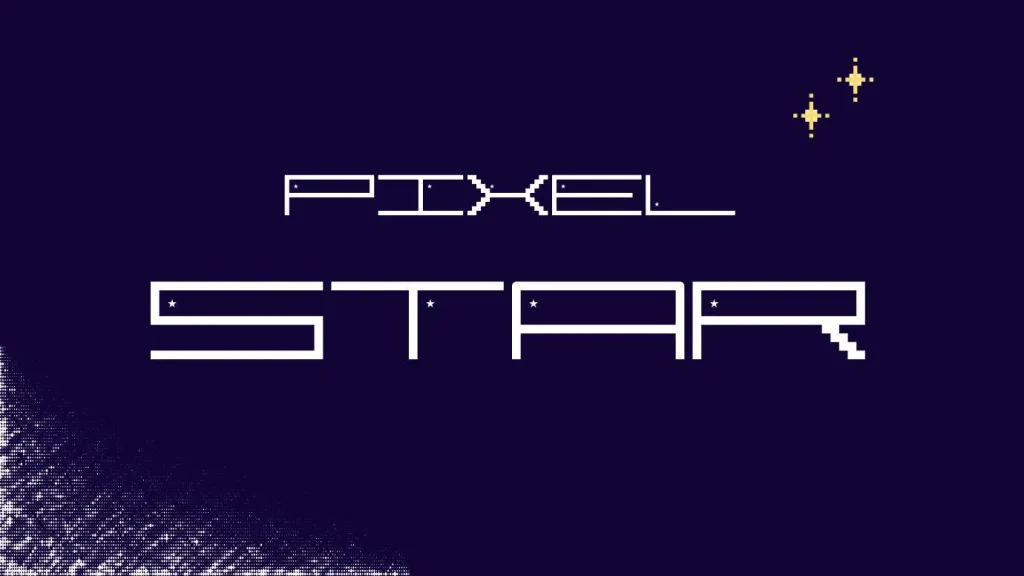
Pixel Star Font
About Pixel Star Font
Pixel Star Font is a techno typeface that was designed by Lewis Jones. In this font there are over a hundred formalized alternatives, allowing for unlimited customization and titling possibilities. It is a classic and stable design.
In addition to web development, game development, and logo design you can use them for many other purposes. Logos and headlines are best suited for this font. If you want to make a design that is both exclusive and grabs attention, it is crucial to pair this font with the hello sunshine font.
There are several ways in which you can utilize its advanced features for official purposes. With this font, you will get the best results for both your clients' projects and your own. Reasons to Use Pixel Star Font
Many designers use this typeface since it is supported by a variety of languages. Utilizing this typeface will enhance the appearance of your designs. Use this typeface to create attractive headlines and titles. Use this attractive typeface for menus, assignments, quotes, and presentations.
The font is best compared to the High Destiny unique typeface. For thumbnail designs, theme designs, and other design projects, this stunning typeface is often selected by designers.
What is Pixel Star font style?
Pixel Star is the unique text style for all your fun designs, the textual style is a nice techno style.
Why is Pixel Star so popular?
Use this typeface to create attractive headlines and titles, this attractive typeface can be used to create menus, assignments, quotes, and presentations.
Who designed Pixel Star?
Pixel Star is designed by the brilliant designer This Techno typeface is designed by Lewis Jones.
Is Pixel Star good for a resume?
No, this text style is not ideal for a resume because it is the techno text style.